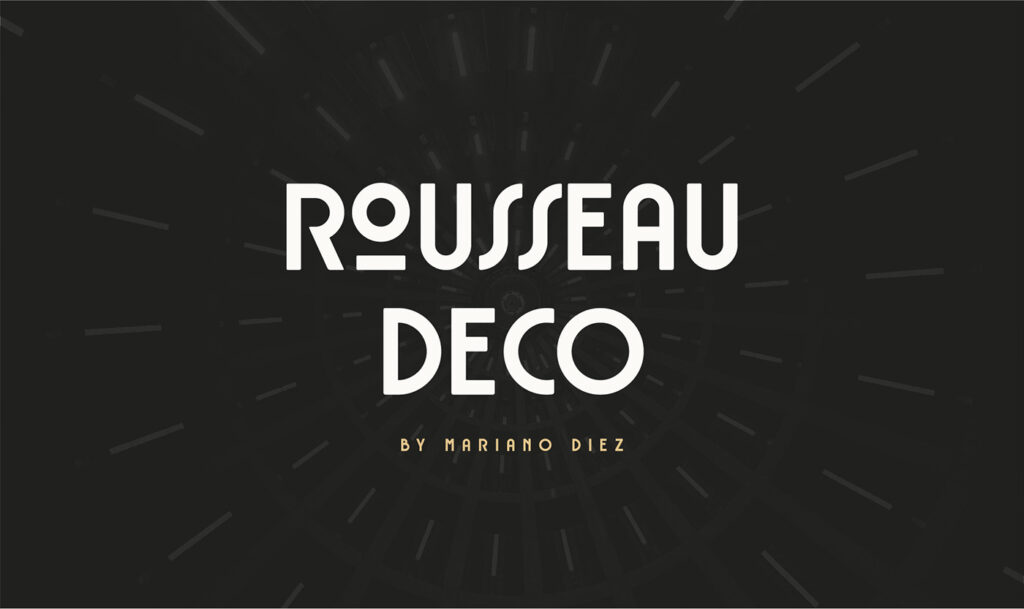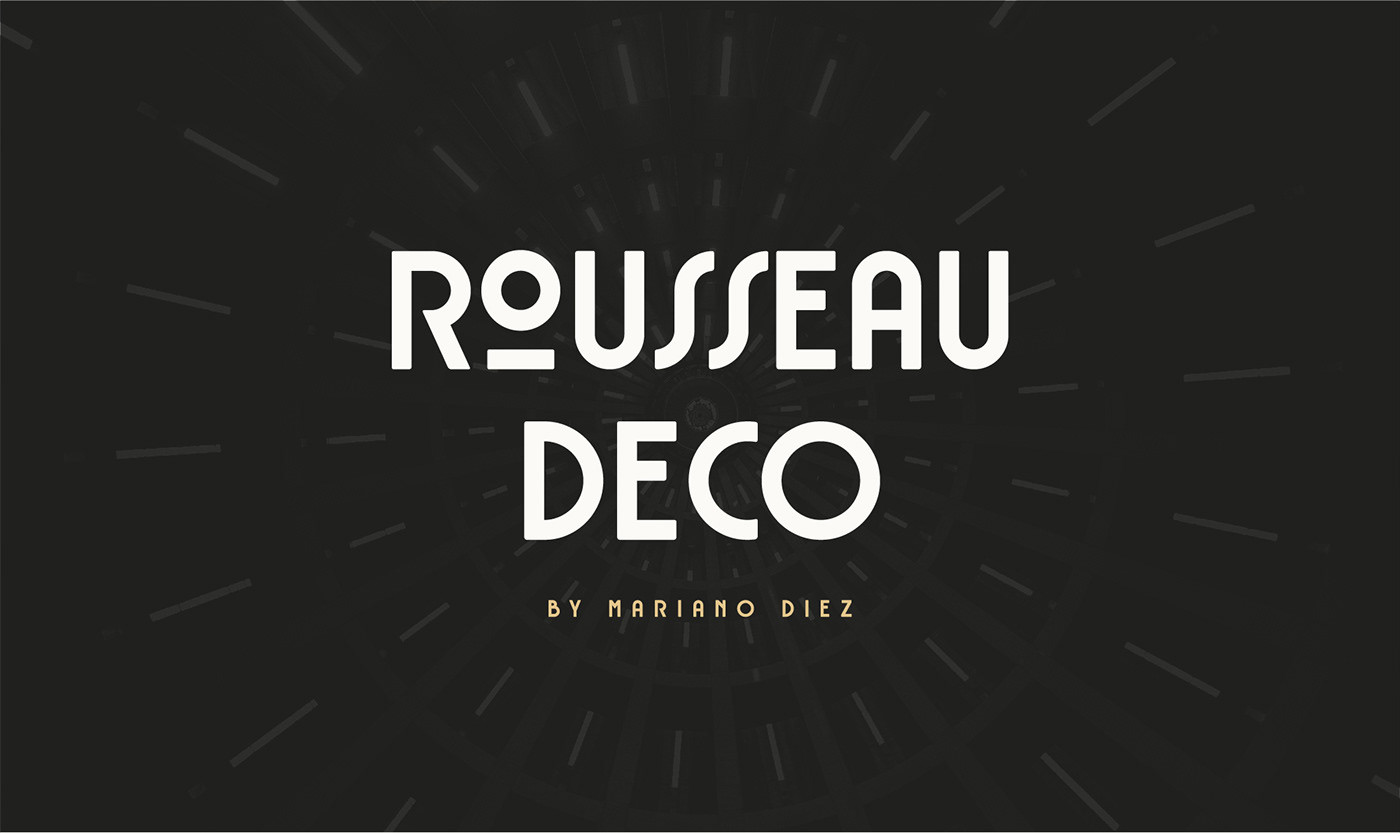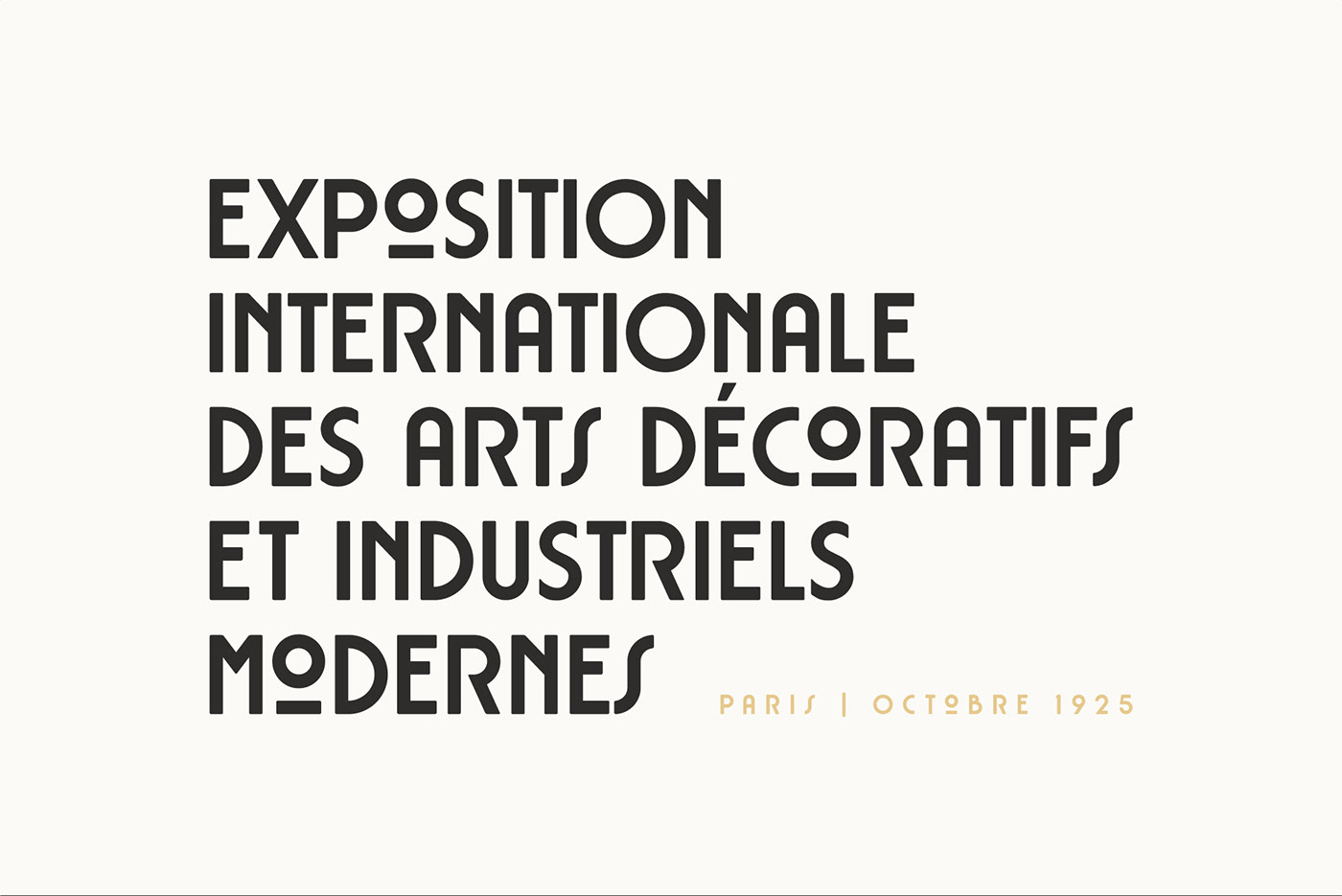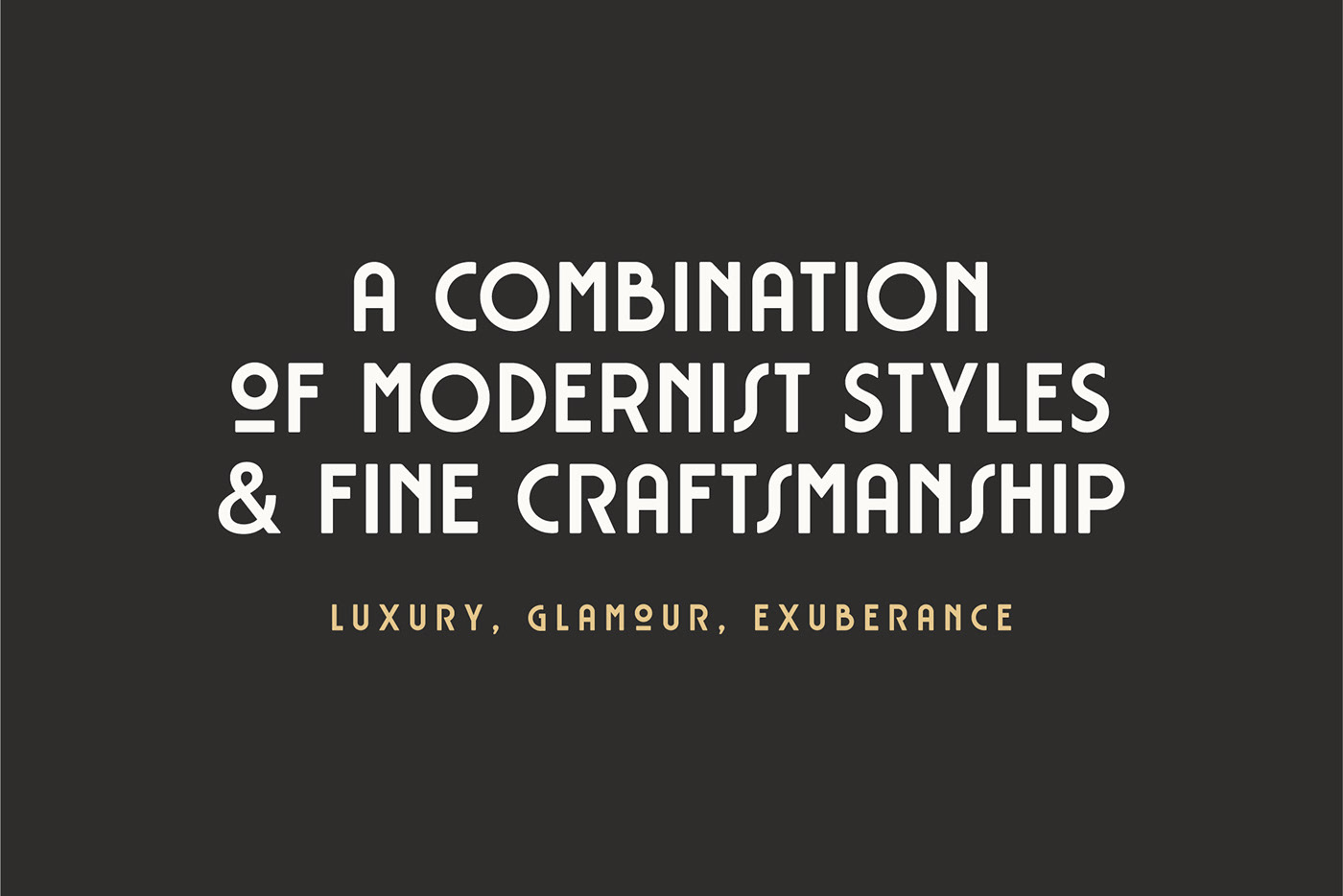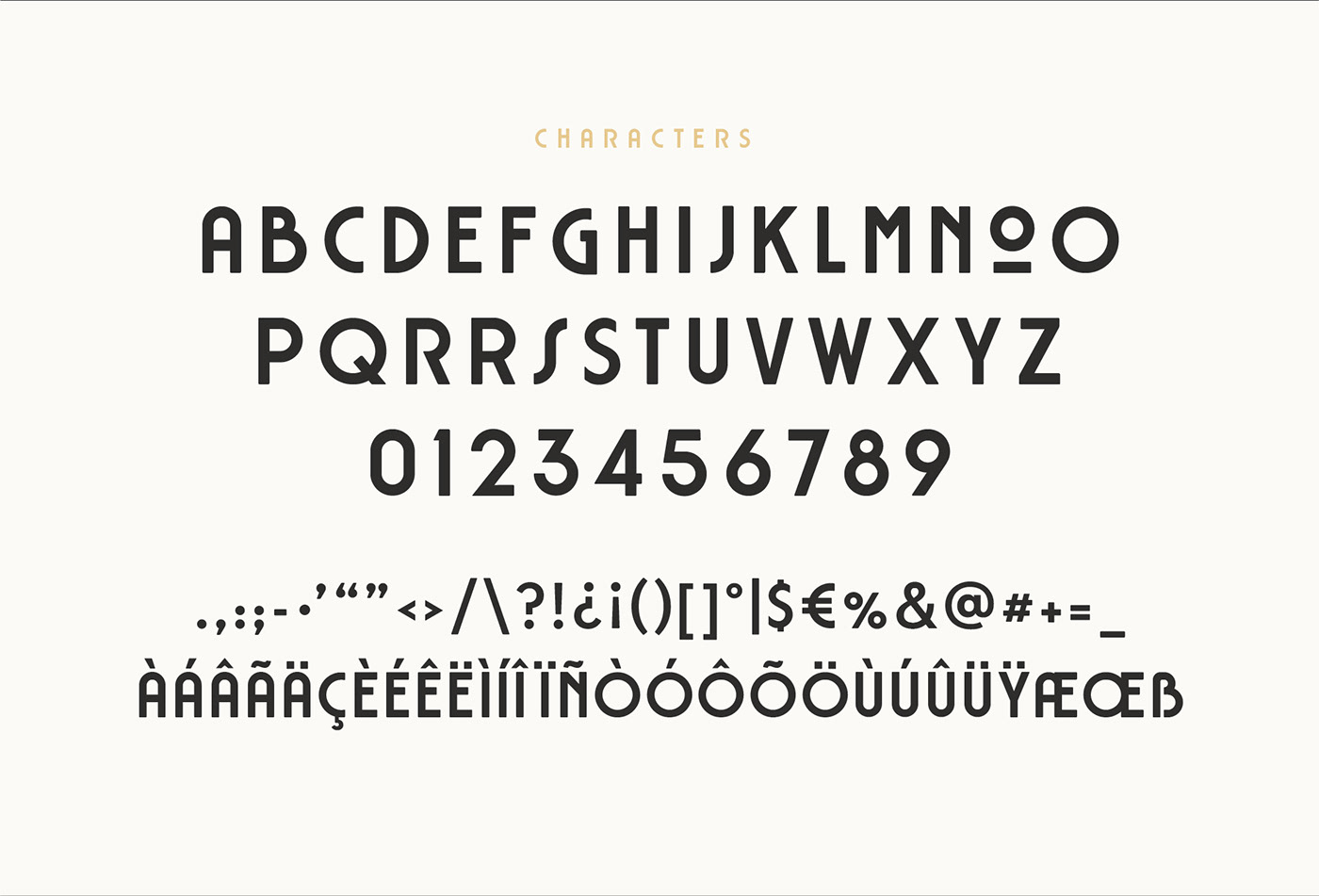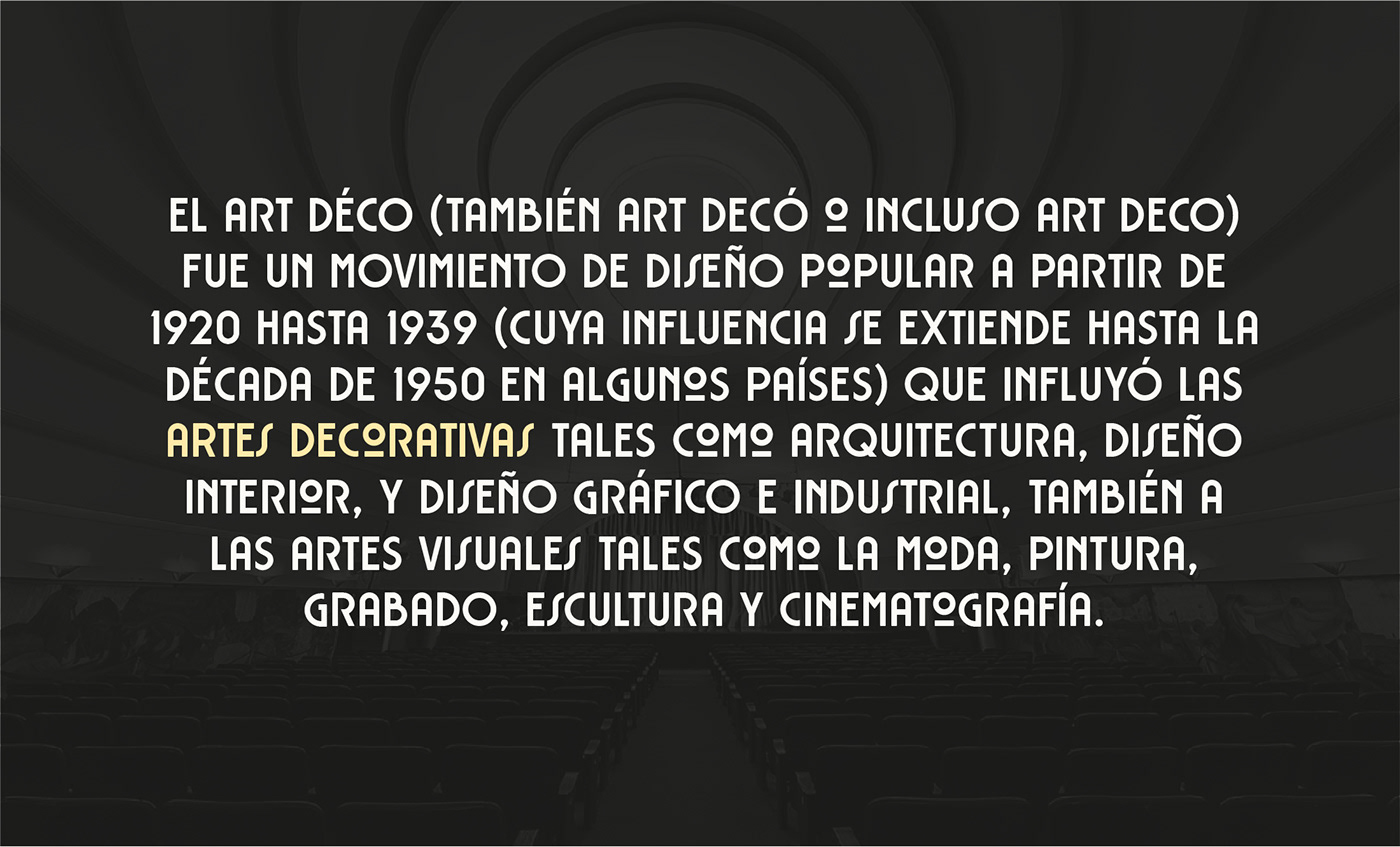
Rousseau Deco is an Art Deco inspired font designed by Mariabno Diez from Rosario, Argentina. This font is spot-on perfect for making some noise on everything from posters to book covers. Free for personal and commercial use!